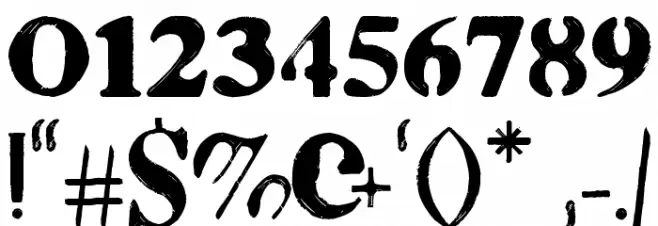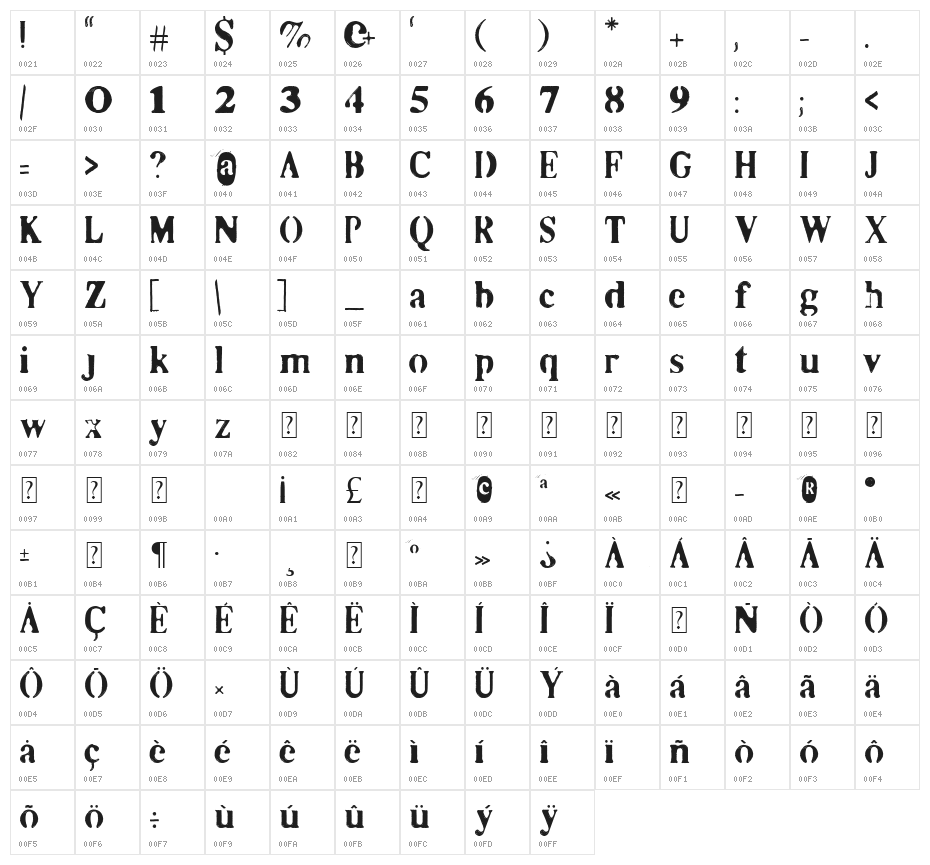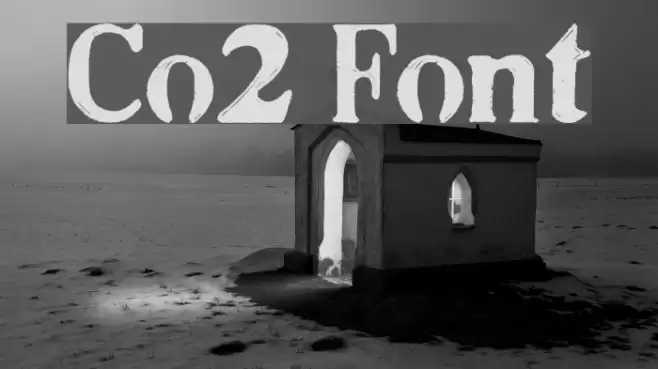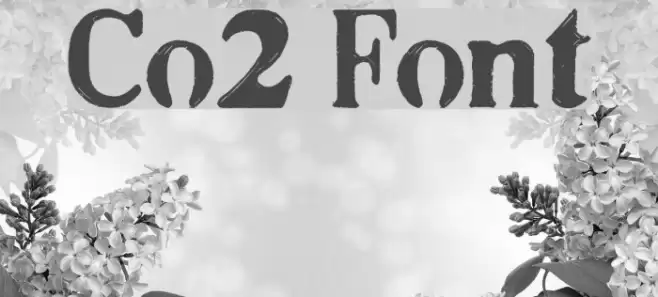
Co2 Font
Co2 Description
This font features a bold and dramatic style with a vintage flair, characterized by its thick strokes and high contrast between thick and thin lines. The uppercase letters have a strong presence with sharp serifs and a slightly distressed appearance, adding to its antique charm. The lowercase letters maintain the same boldness, with unique curves and angles that give the font a distinctive personality. Numbers and special characters follow the same stylistic cues, ensuring consistency across all glyphs. This font is ideal for projects that require a touch of nostalgia and boldness, such as vintage posters, branding, or editorial design.